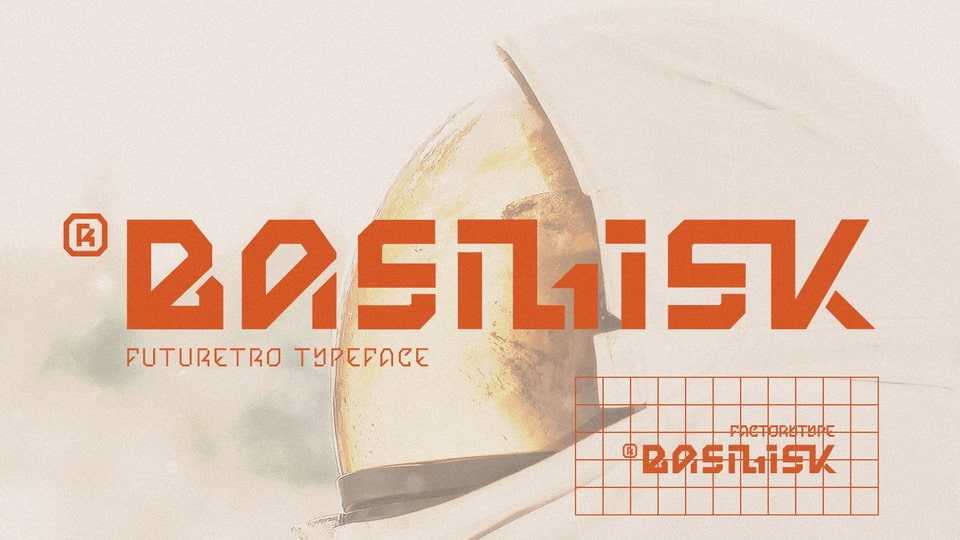
Download Basilisk font, a futuristic and retro-inspired typeface that works well in any sci-fi space thriller. Basilisk is for you if you like futuristic fonts.
Designer: Factory Type